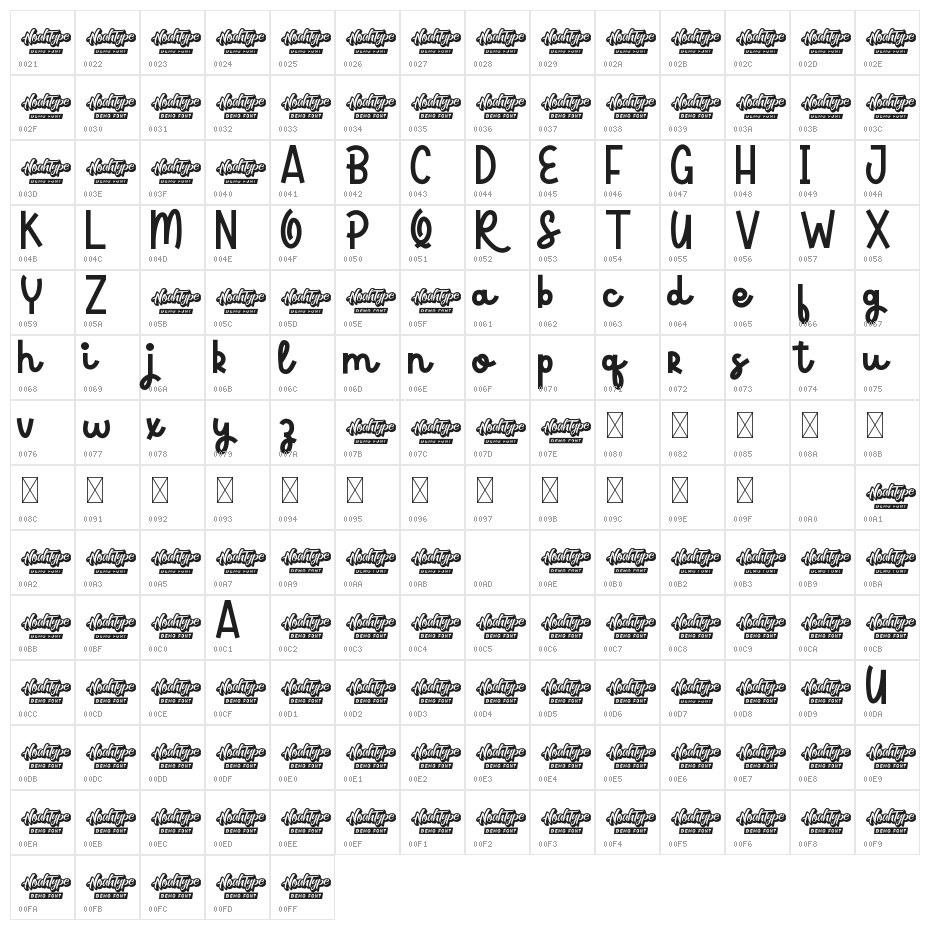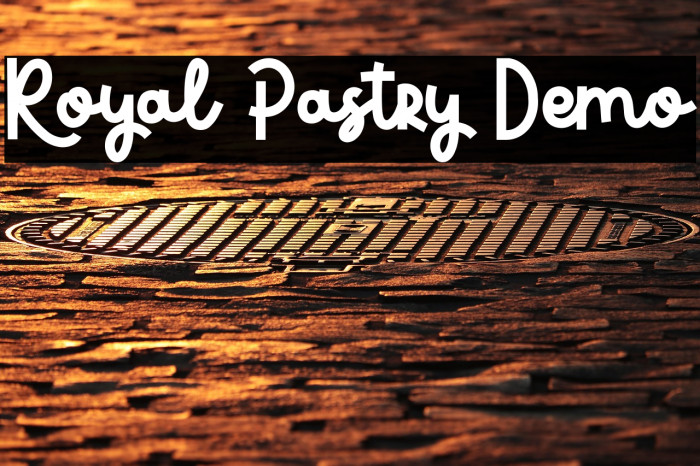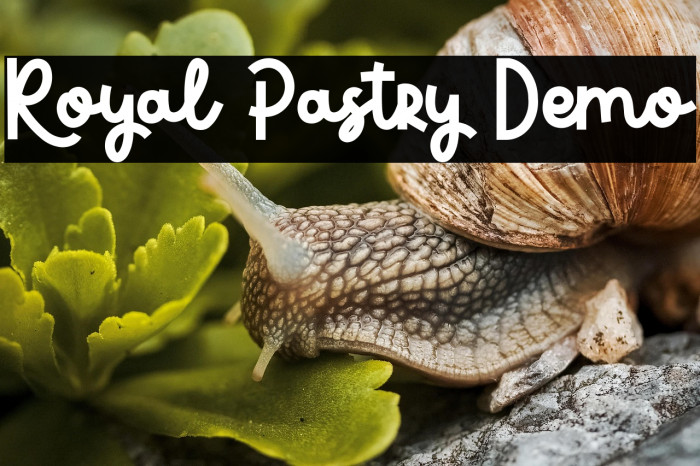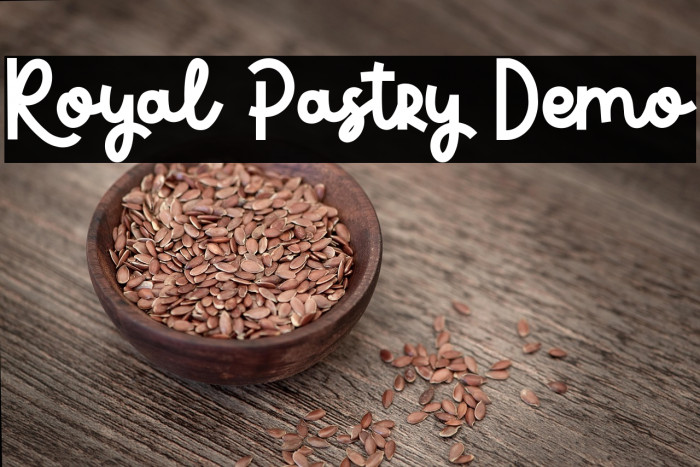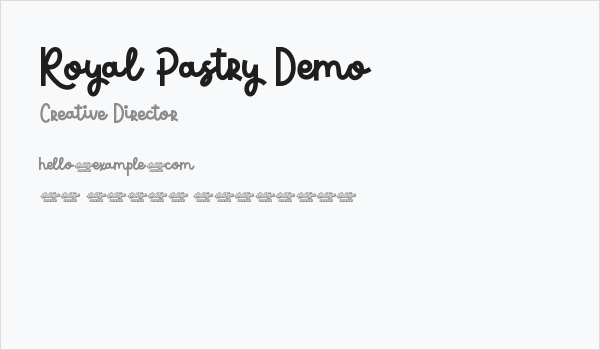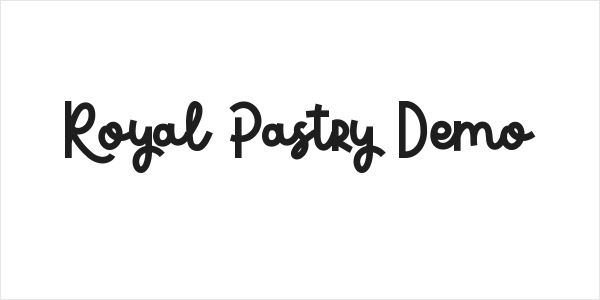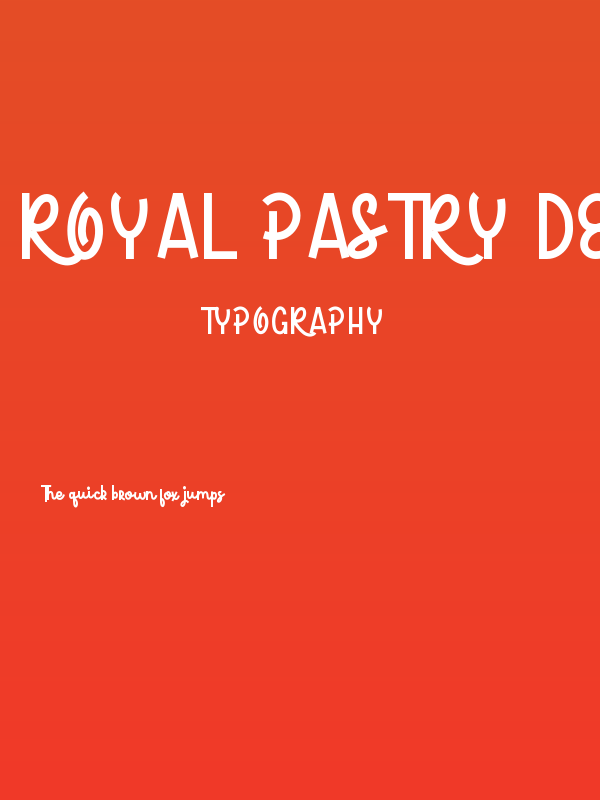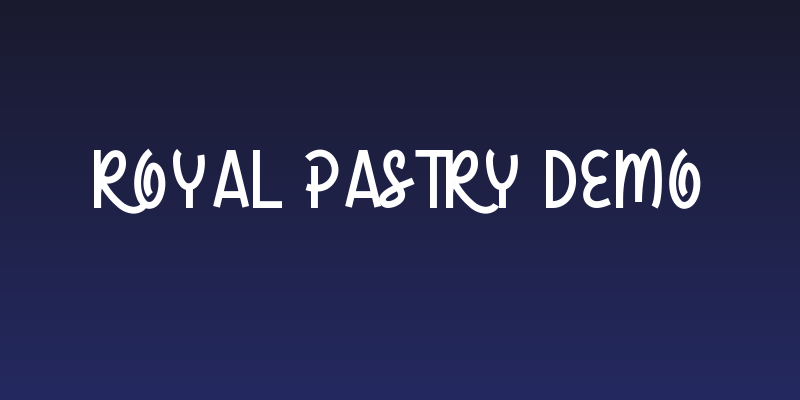
Royal Pastry Demo Font
Royal Pastry Demo Description
This font features a playful and whimsical style, combining elements of both script and display typography. The uppercase letters are bold and slightly condensed, with a unique flair that adds character to each letterform. The lowercase letters exhibit a flowing, cursive-like quality, creating a dynamic contrast with the uppercase. The numbers and special characters maintain the same playful aesthetic, making them suitable for creative and informal designs. The overall design is cohesive and visually engaging, perfect for projects that require a touch of fun and creativity.